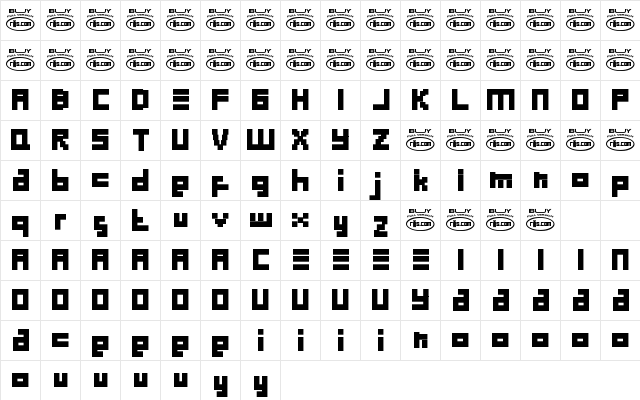
Meja Block Demo Regular
| Designer | riljs |
Design Context for Meja Block Demo Typeface
Meja Block Demo offers clean, dependable letterforms without strong stylistic allegiance, making it a practical choice for designers who need flexibility.